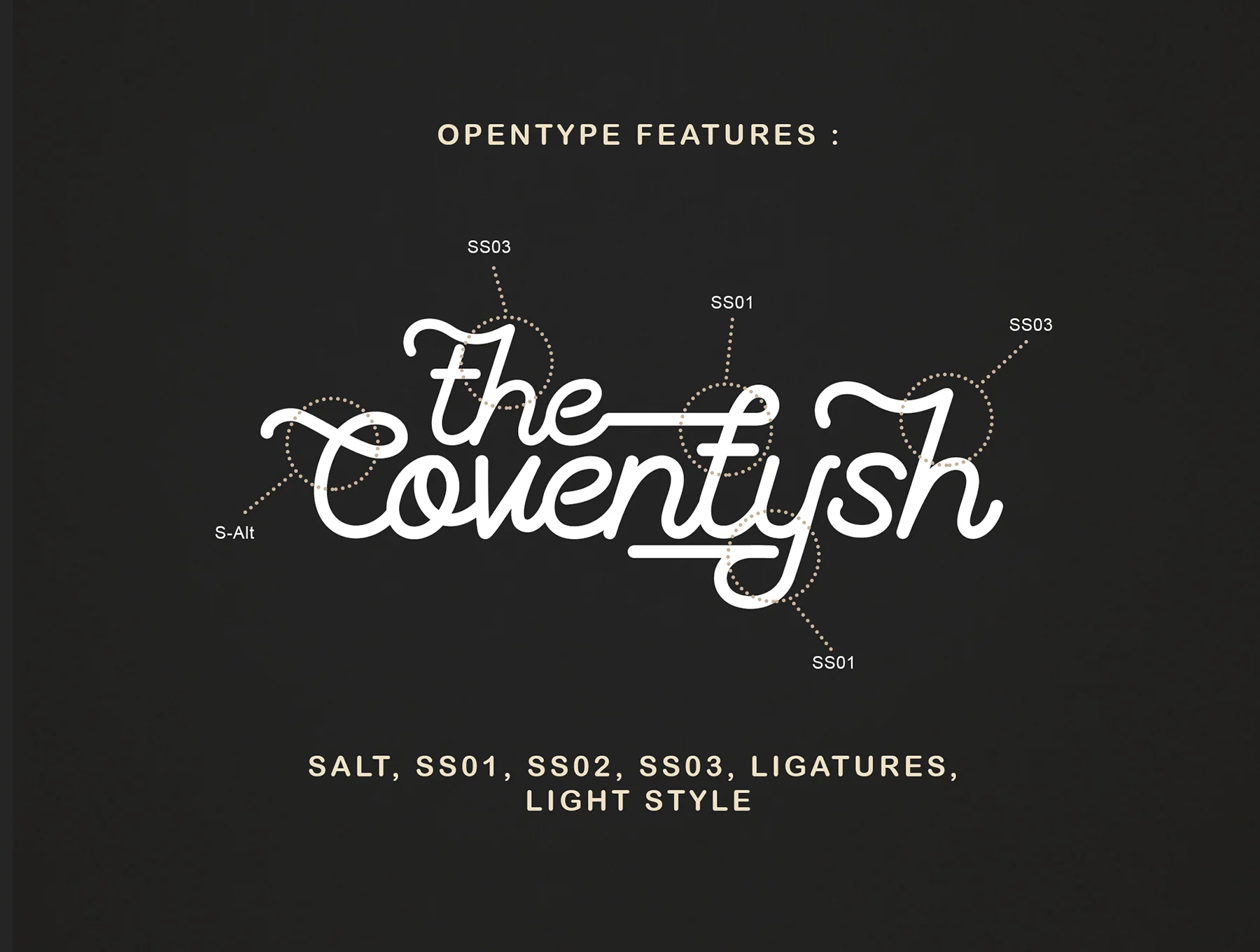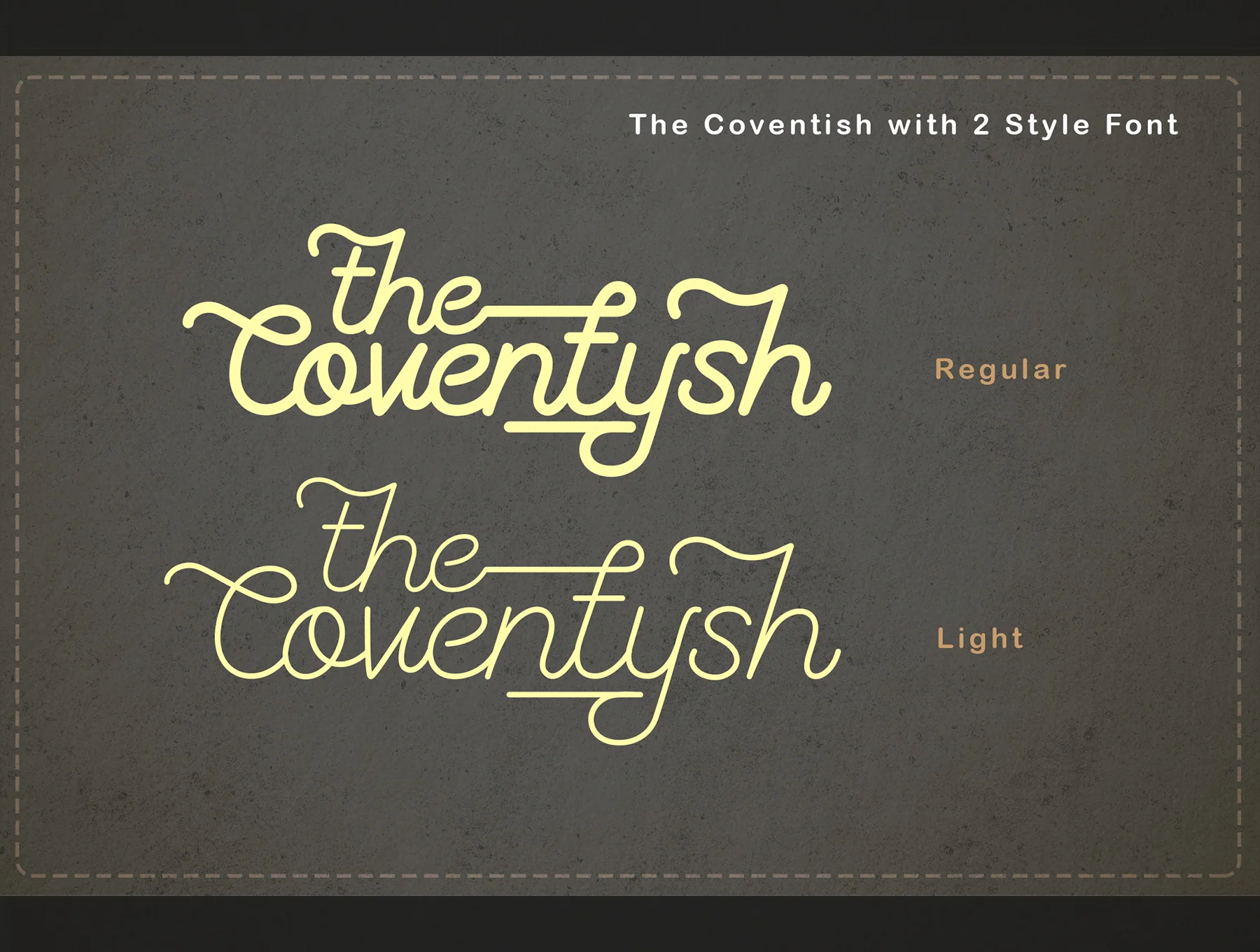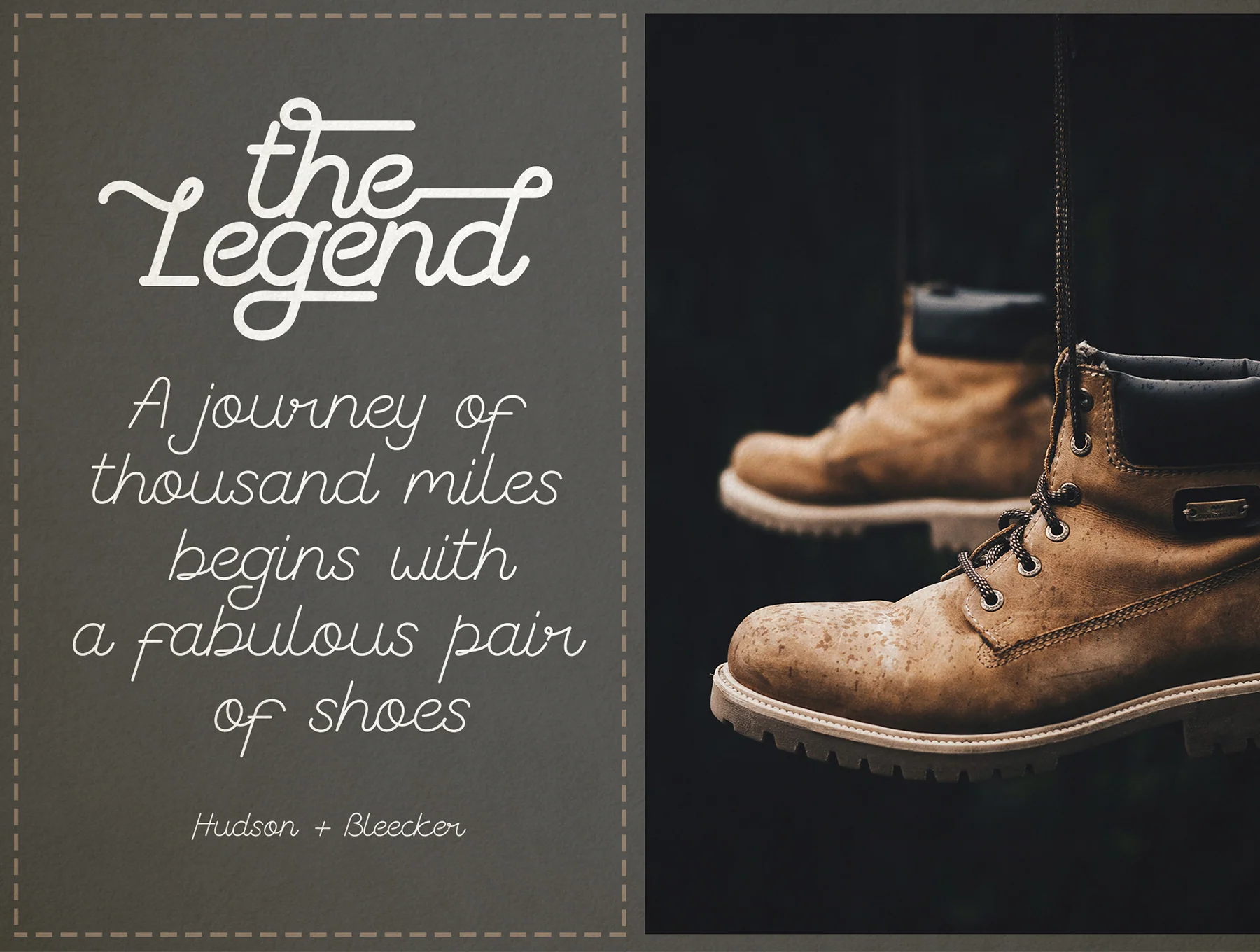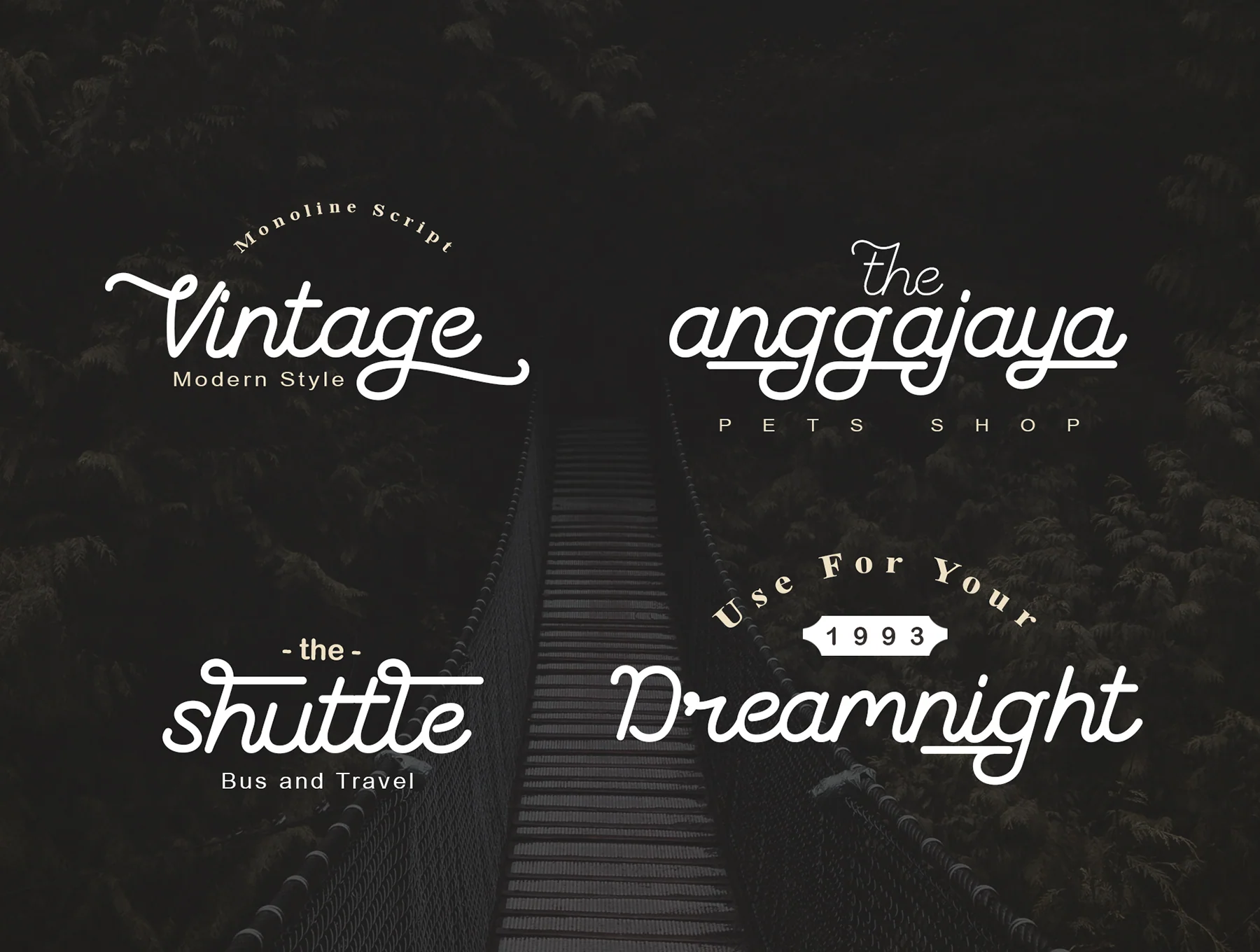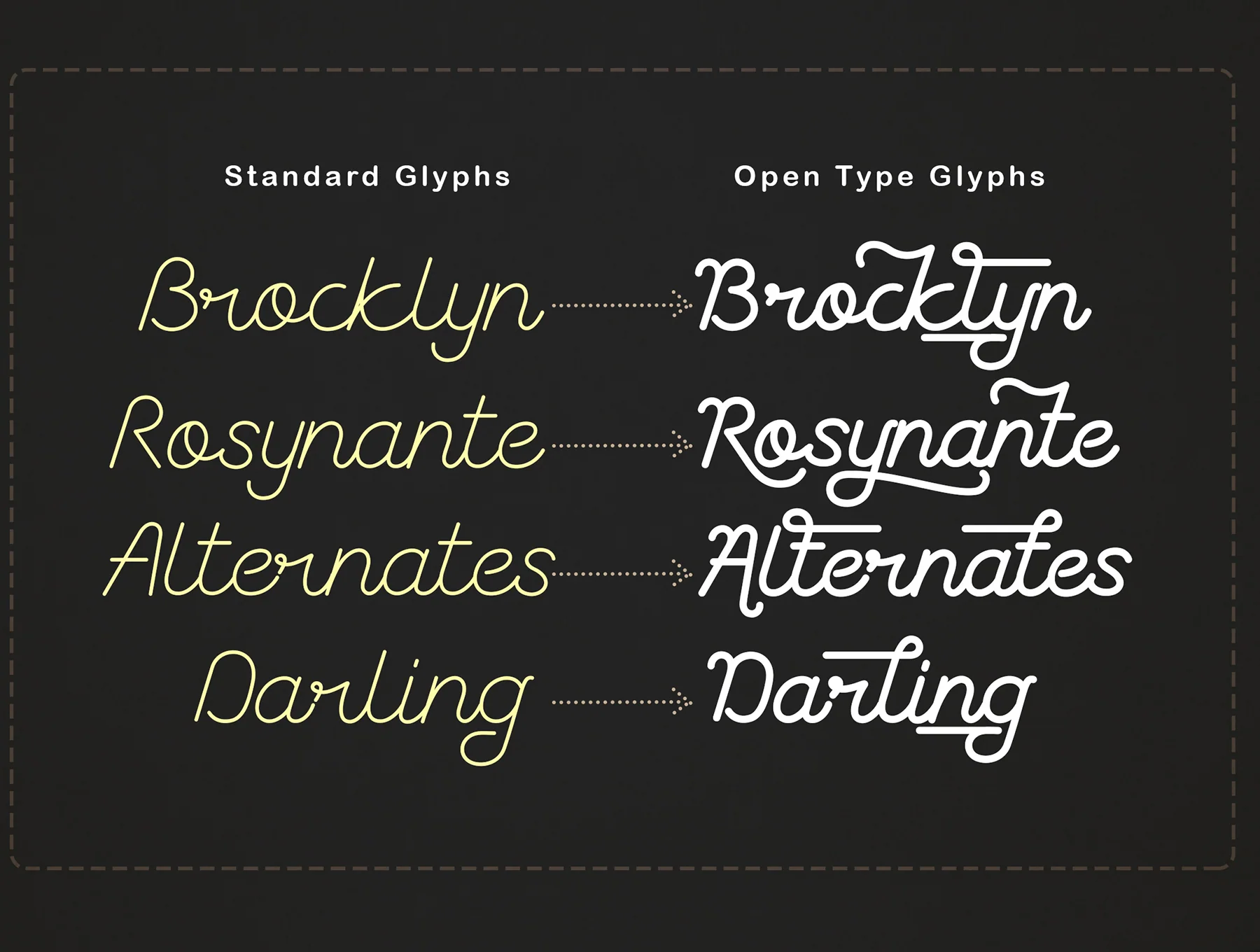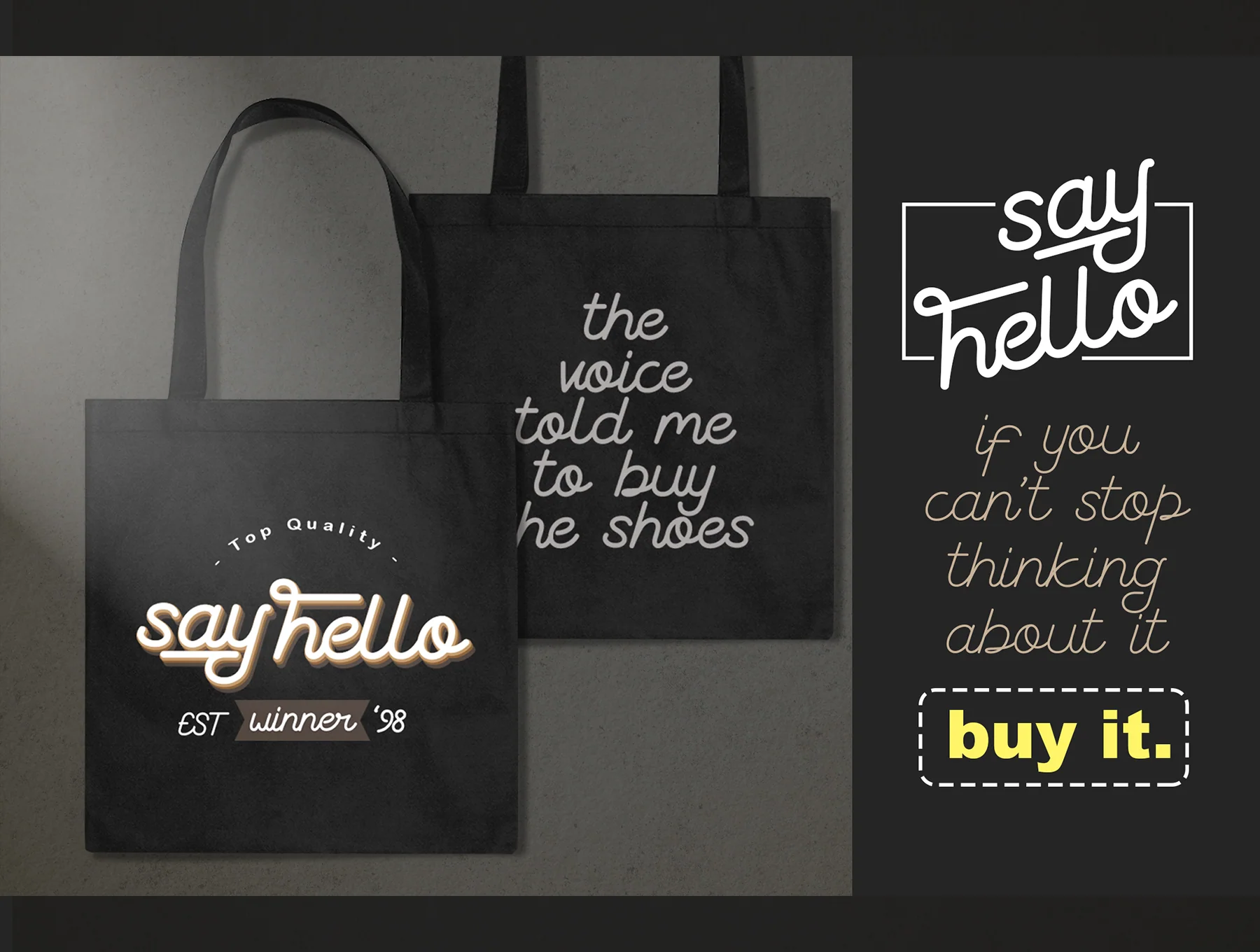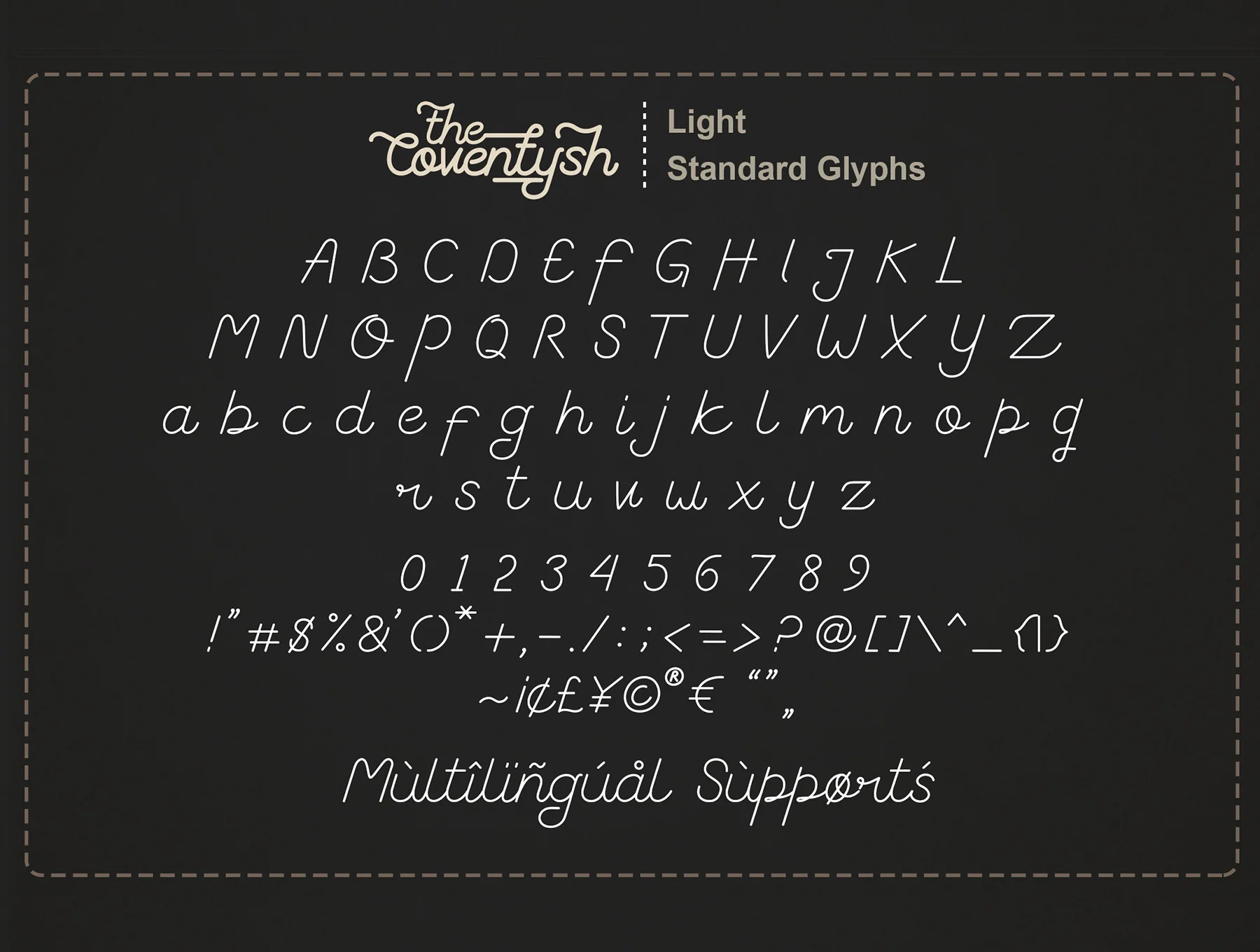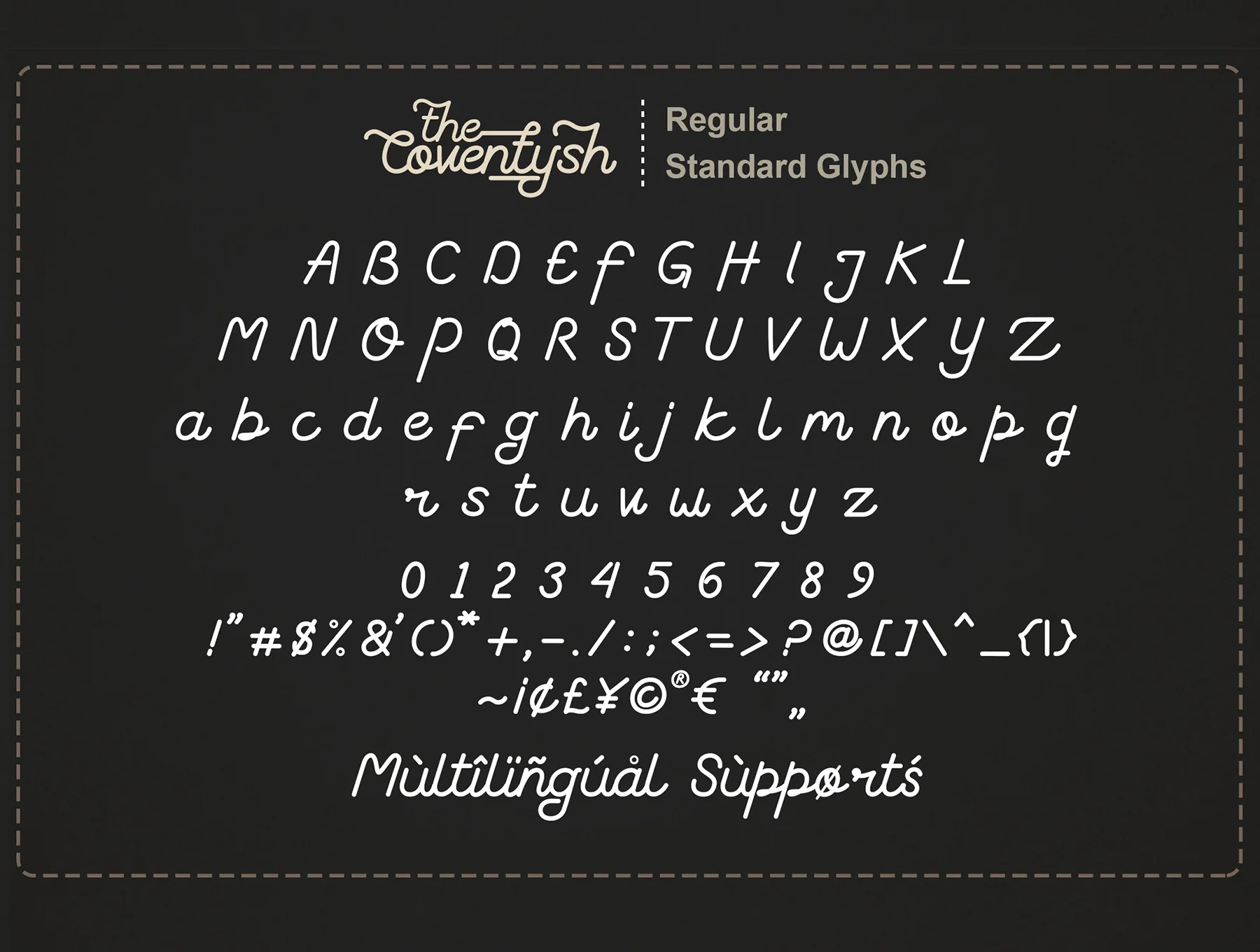
The Coventysh – Monoline Script Font
Single-Line Script Typeface
Two weight variations
Coventysh is a stylish mono-line script typeface with two weights, ideal for logos, brand identity, apparel, signs, posters, wedding stationery, and other creative uses. Designed to stay clear and readable, it blends a handmade, natural character with a polished, consistent letter set for versatile projects.